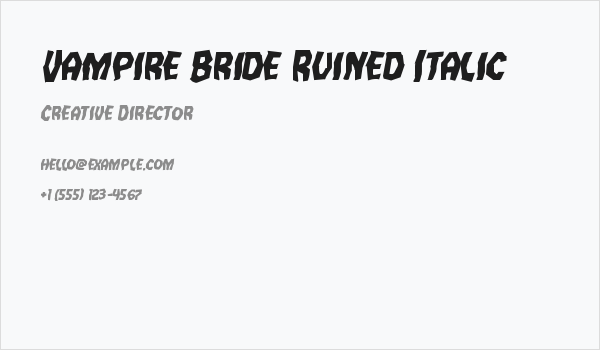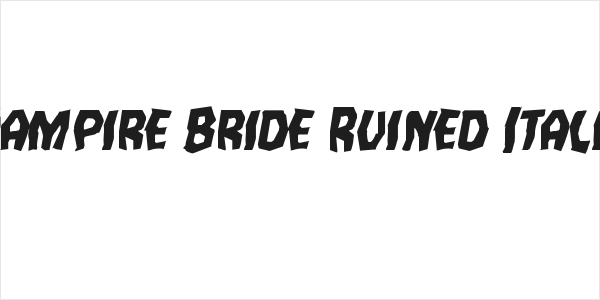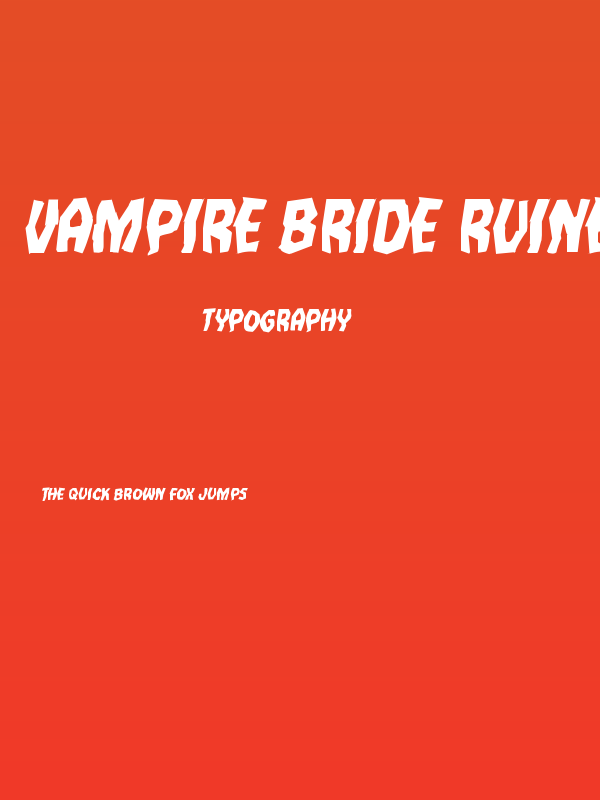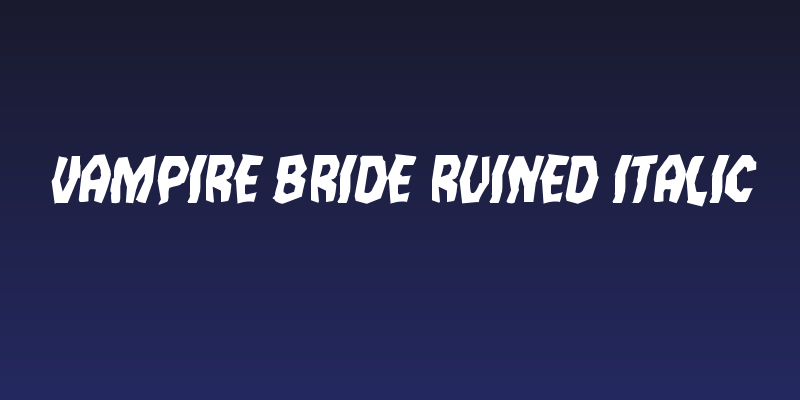
Vampire Bride Ruined Italic Font
Vampire Bride Ruined Italic Description
This font features a bold and jagged style, reminiscent of horror or gothic themes. The characters have an irregular, distressed appearance, giving them a unique and edgy look. The uppercase and lowercase letters maintain a consistent style, with sharp angles and uneven edges that create a sense of movement and chaos. The numbers and special characters follow the same design principles, ensuring a cohesive look across all glyphs. This font is ideal for projects that require a dramatic and unconventional aesthetic.
| Overall Style | Gothic, Edgy, Dramatic |
| Use Case | Headlines, Posters, Branding |
| Proposed Projects | Ideal for horror-themed posters, Halloween invitations, edgy branding, or album covers. |